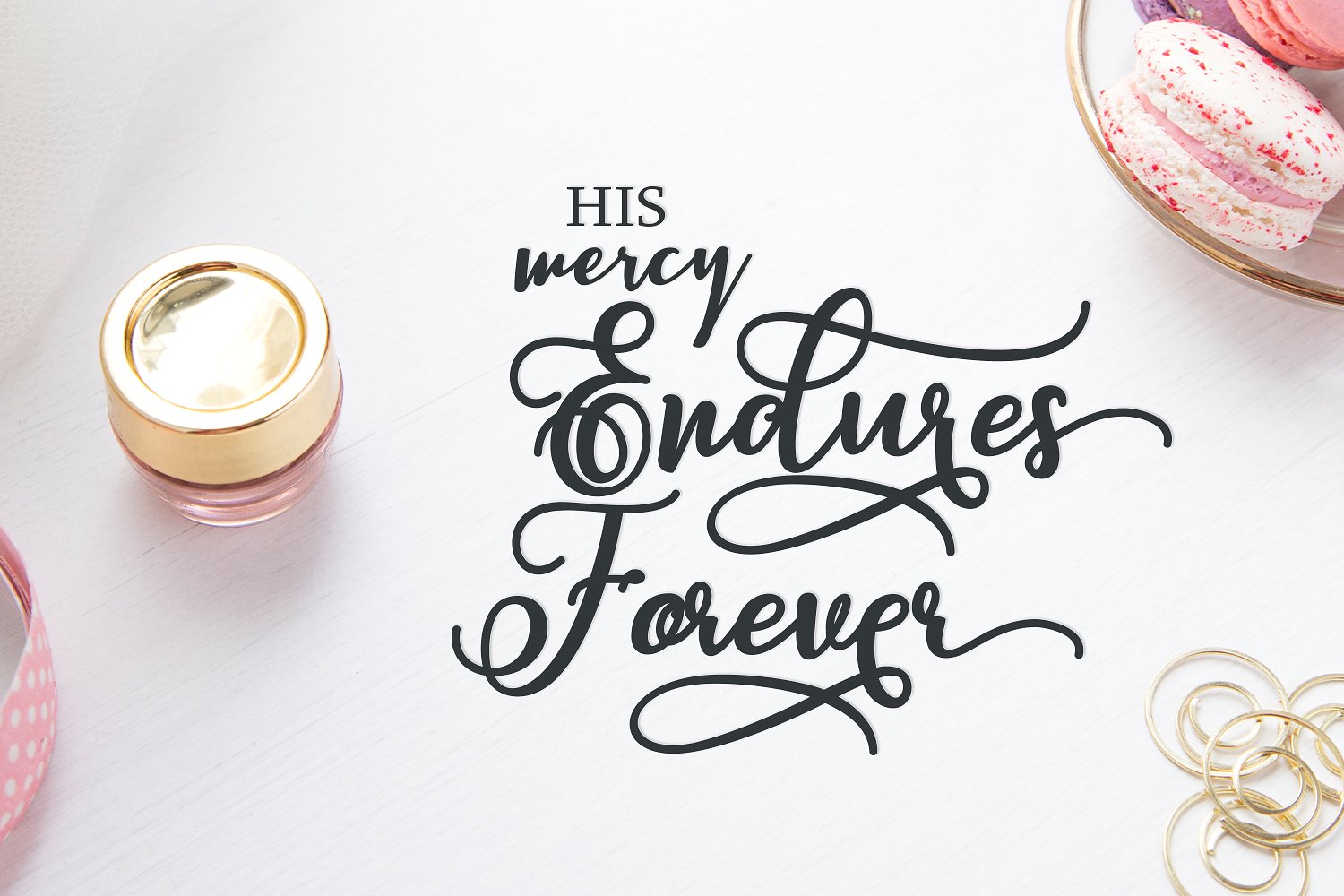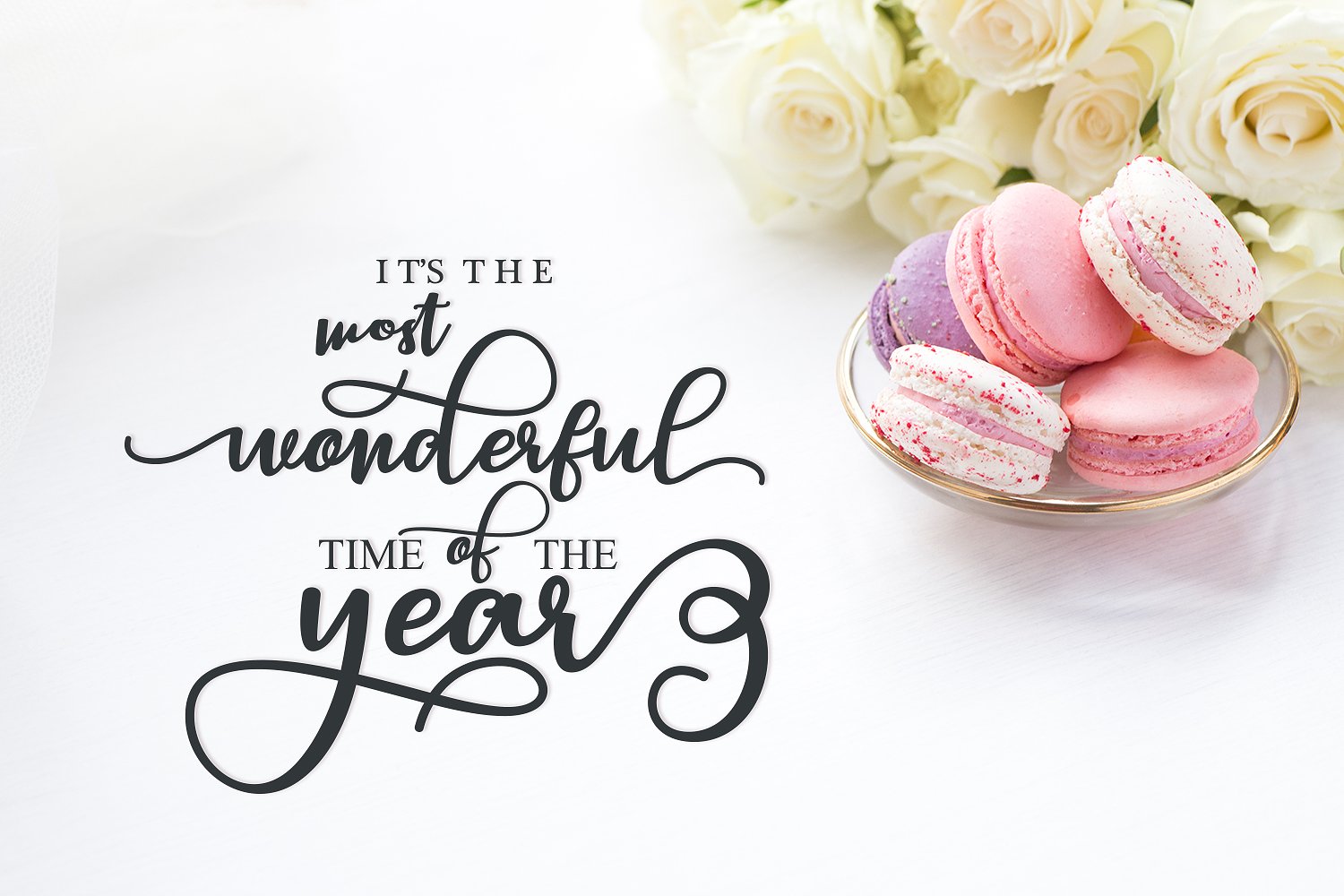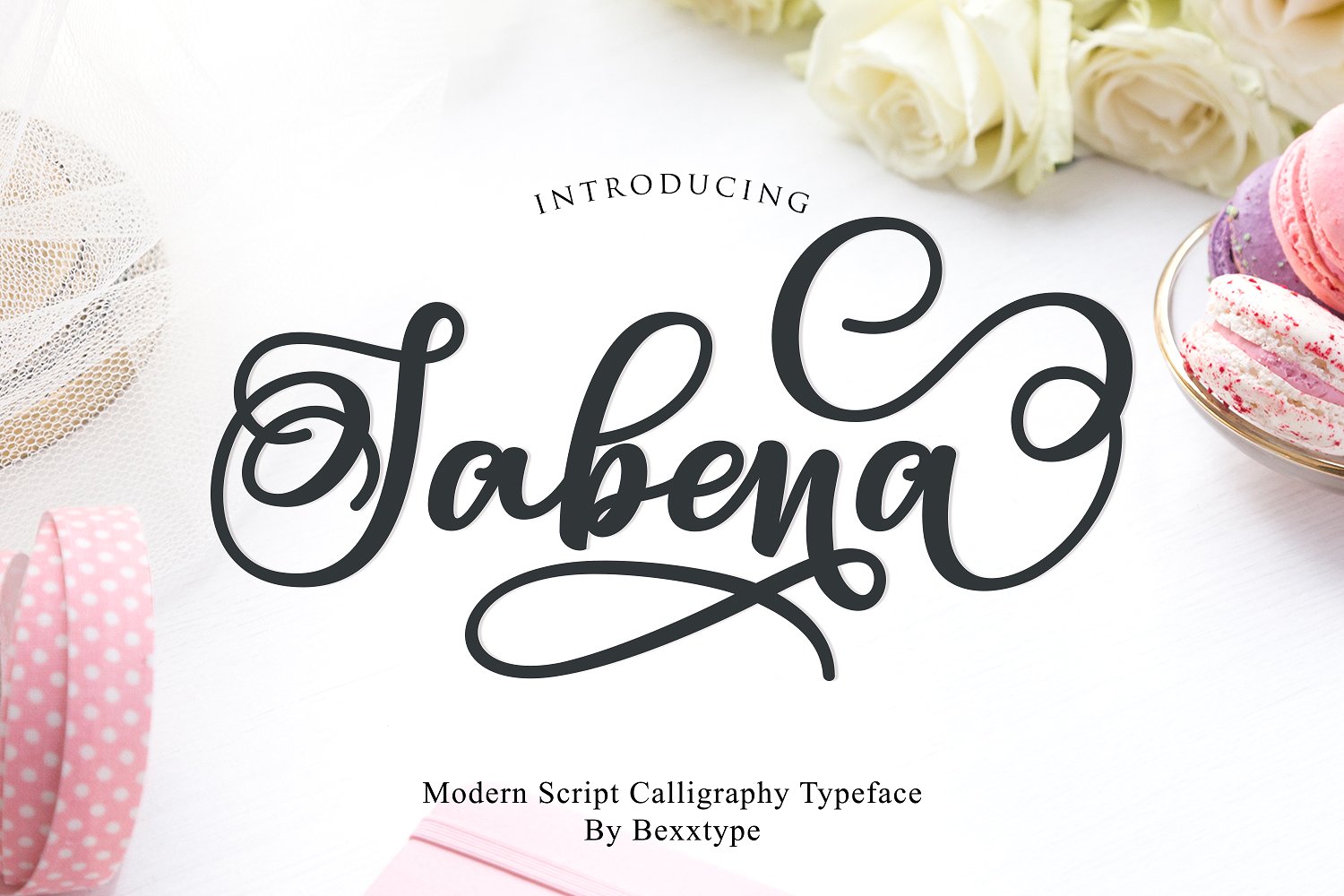
Sabena Calligraphy Font
This is modern script calligraphy typeface by Bexxtype. A subtle, modern calligraphy font that will give a casual chic look to your designs. Introducing Sabena Font. Sabena Script Sweet Font a new fresh & modern script with a handmade calligraphy style, decorative characters and a dancing baseline! So beautiful on invitation like greeting cards, branding materials, business cards, quotes, posters, and more!!